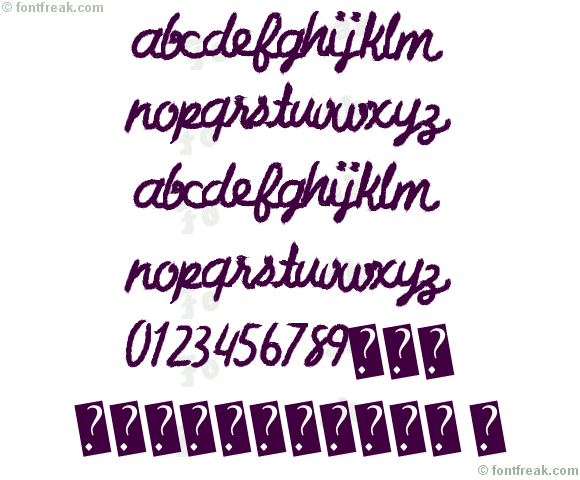
CharcoalScript
About CharcoalScript
CharcoalScript is a captivating handwritten font that falls under the script category, designed by Xerographer Fonts in 2012. This unique typeface features a casual yet artistic style, characterized by its fluid strokes and organic feel. The font displays a medium stroke weight with subtle variations, adding a sense of authenticity and warmth to any text. The letters are slightly spaced, giving them room to breathe, which enhances legibility while maintaining a relaxed appearance. Decorative elements, such as gentle swirls and unique terminal ends, contribute to its handwritten charm, making it an engaging choice for various design projects.
This versatile font is ideal for a range of applications. It works beautifully for wedding invitations, where its elegant script can evoke romance and joy. Additionally, CharcoalScript is perfect for restaurant menus, adding a personal touch that enhances the dining experience. Graphic designers will find it suitable for creating eye-catching movie posters that require a casual yet artistic flair. Small business owners can utilize this font for branding materials, such as logos and promotional flyers, to establish a friendly and approachable image. Content creators will also appreciate its charm for social media graphics, making posts stand out in a crowded feed.
Targeting graphic designers, small business owners, and content creators, CharcoalScript provides an appealing option for those looking to add a touch of personality to their projects. The font's approachable style and easy readability make it a standout choice in the realm of handwritten typefaces. For anyone seeking a unique and engaging typeface, the CharcoalScript font free download offers an excellent opportunity to enhance their design toolkit and elevate their creative projects. Its distinctive characteristics ensure that it will leave a lasting impression on any audience.